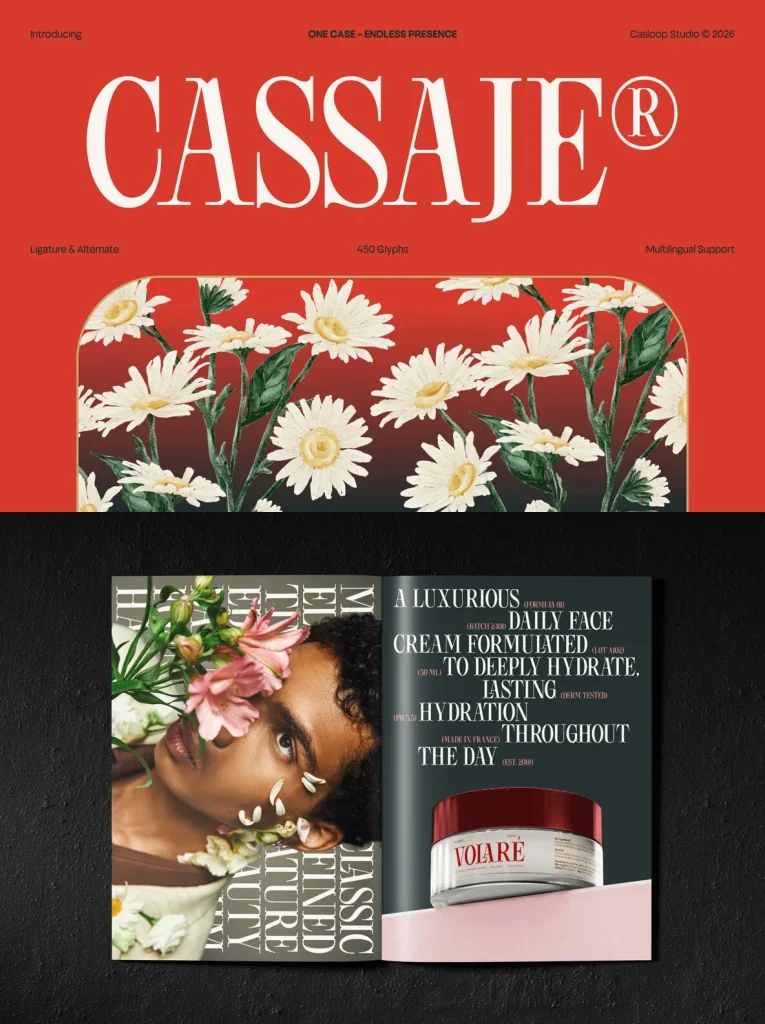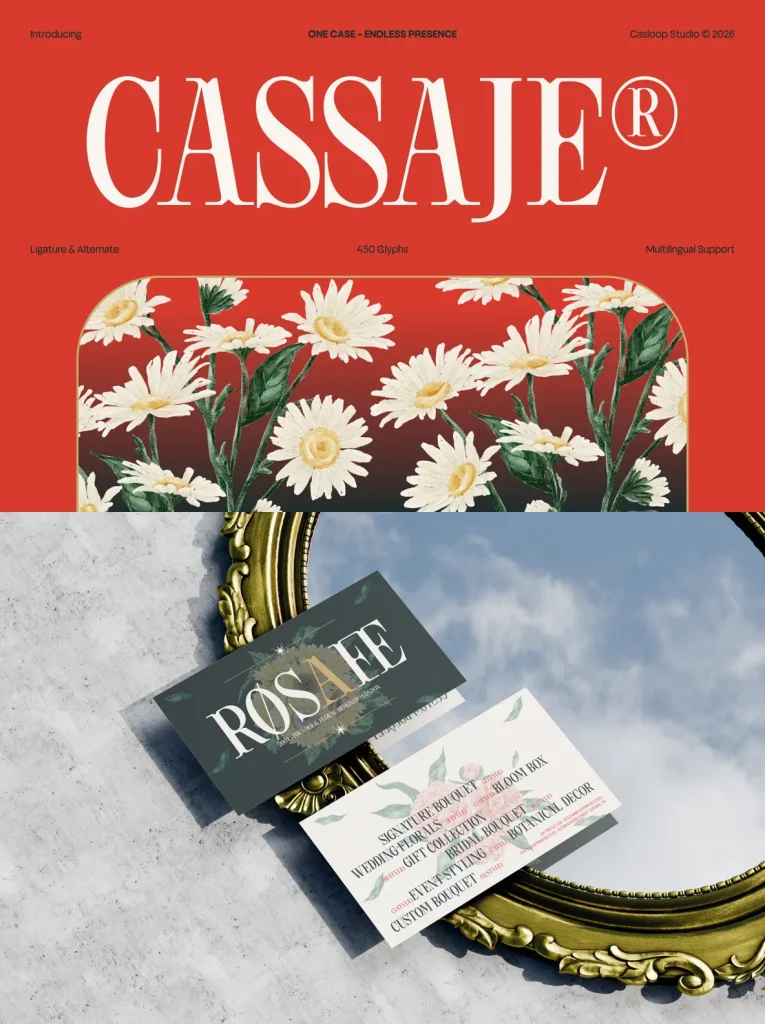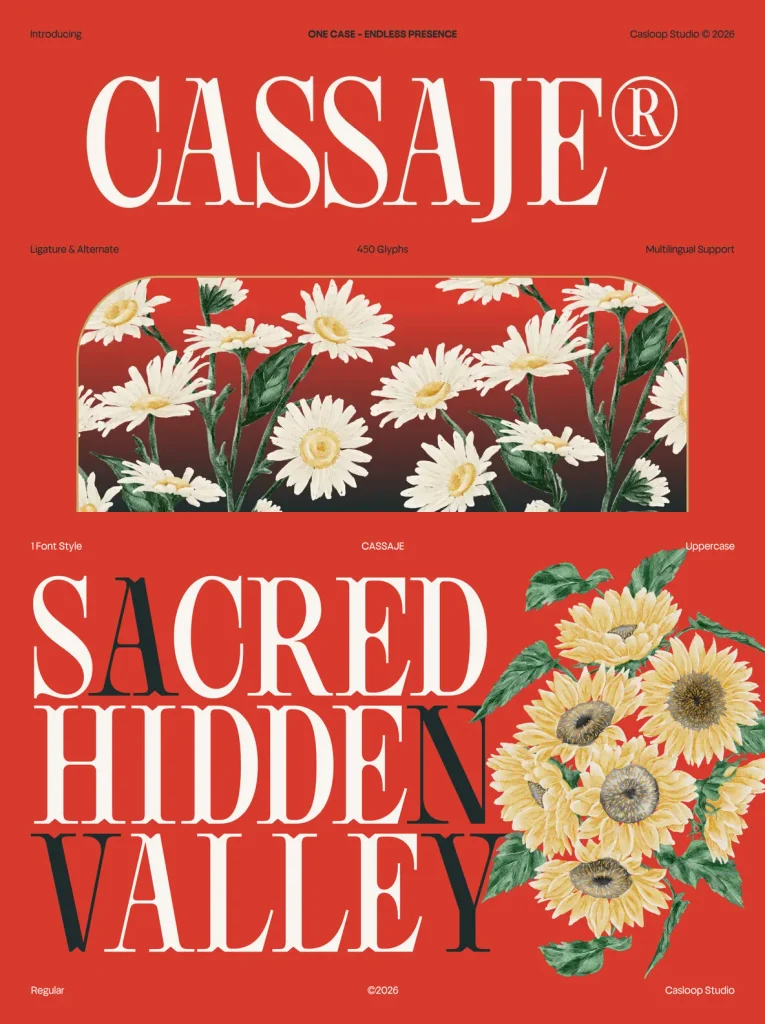
Cassaje — Botanical Drama in Capitals
Cassaje is a floral display uppercase font with refined elegance and strong visual presence. Designed for compositions that need a sophisticated statement, it uses high stroke contrast, expressive terminals, and confident uppercase proportions to create a graceful editorial rhythm. The defining characters A, C, G, M, Q, and R shape the typeface’s signature identity, giving Cassaje a distinctive, modern, and luxurious character.
Delicate floral-inspired details enrich the letterforms while keeping the font clear and readable. As an uppercase-only display typeface, Cassaje works especially well for logos, editorial headlines, fashion branding, premium packaging, invitations, and creative projects that call for a unique botanical touch.
Features
Uppercase
Numbers and punctuation
Ligatures & Stylistic Alternates Characters